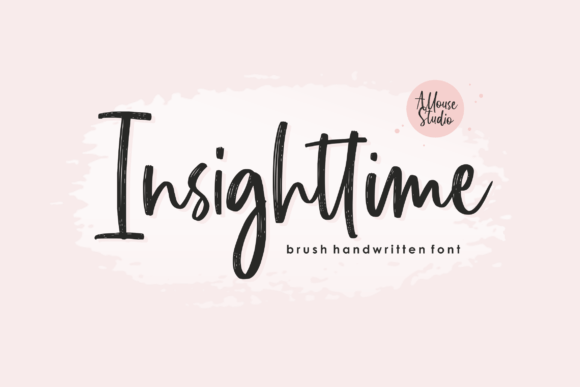
Behold the Insighttime Font, a captivating script font that breathes life into your creative endeavors. Crafted with precision and an artistic flair, this font family is designed to turn your projects into masterpieces.
With its graceful curves and elegant serifs, Insighttime possesses an undeniable charm that adds a touch of sophistication to your designs. From wedding invitations that exude timeless romance to thank-you cards that convey heartfelt gratitude, Insighttime becomes an integral part of your visual storytelling.
Step into a world of boundless creativity, where Insighttime's versatility knows no bounds. Its flowing lines lend an air of grace to quotes and greeting cards, while its distinct character adds a touch of professionalism to logos and business cards. Let your imagination soar as you explore the endless possibilities that await you with this remarkable font.
The letter E, often overlooked yet pivotal in the realm of typography, takes center stage in the Insighttime Font. Its elongated form, adorned with delicate flourishes, commands attention and adds a touch of whimsy to your designs. Whether it's the beginning of a sentence or the heart of a word, the letter E becomes a focal point, adding intrigue and visual interest to your creations.
Created by the talented allouse.studio, Insighttime embodies the essence of elegance and charm. Its meticulously crafted characters dance across the page, evoking a sense of nostalgia and timeless beauty. Whether you're a seasoned designer or just starting your creative journey, Insighttime is your ultimate companion, ready to elevate your projects to new heights.
So, embark on a journey of artistic exploration with Insighttime Font. Let its captivating curves and enchanting letterforms guide you towards a world of visual wonders. Unleash your creativity and experience the transformative power of this exquisite font today.